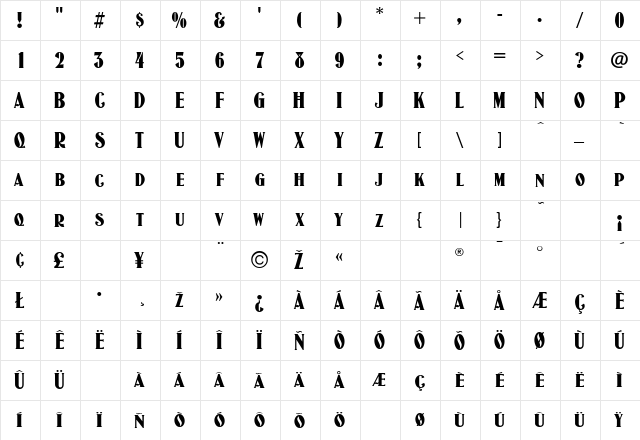
JasonWood Regular
Design Context for JasonWood Typeface
JasonWood echoes the hand-painted signage and woodblock typography of the American frontier, with a warm, rugged personality.
Perfect for barbecue restaurants, country music branding, vintage poster design, and rustic packaging.
Font Pairing: Combine JasonWood with a simple slab or neutral sans — period-accurate companions reinforce the vintage feel without competing for attention.
Pro Tip: Pair JasonWood with aged textures or distressed backgrounds to amplify its vintage personality.